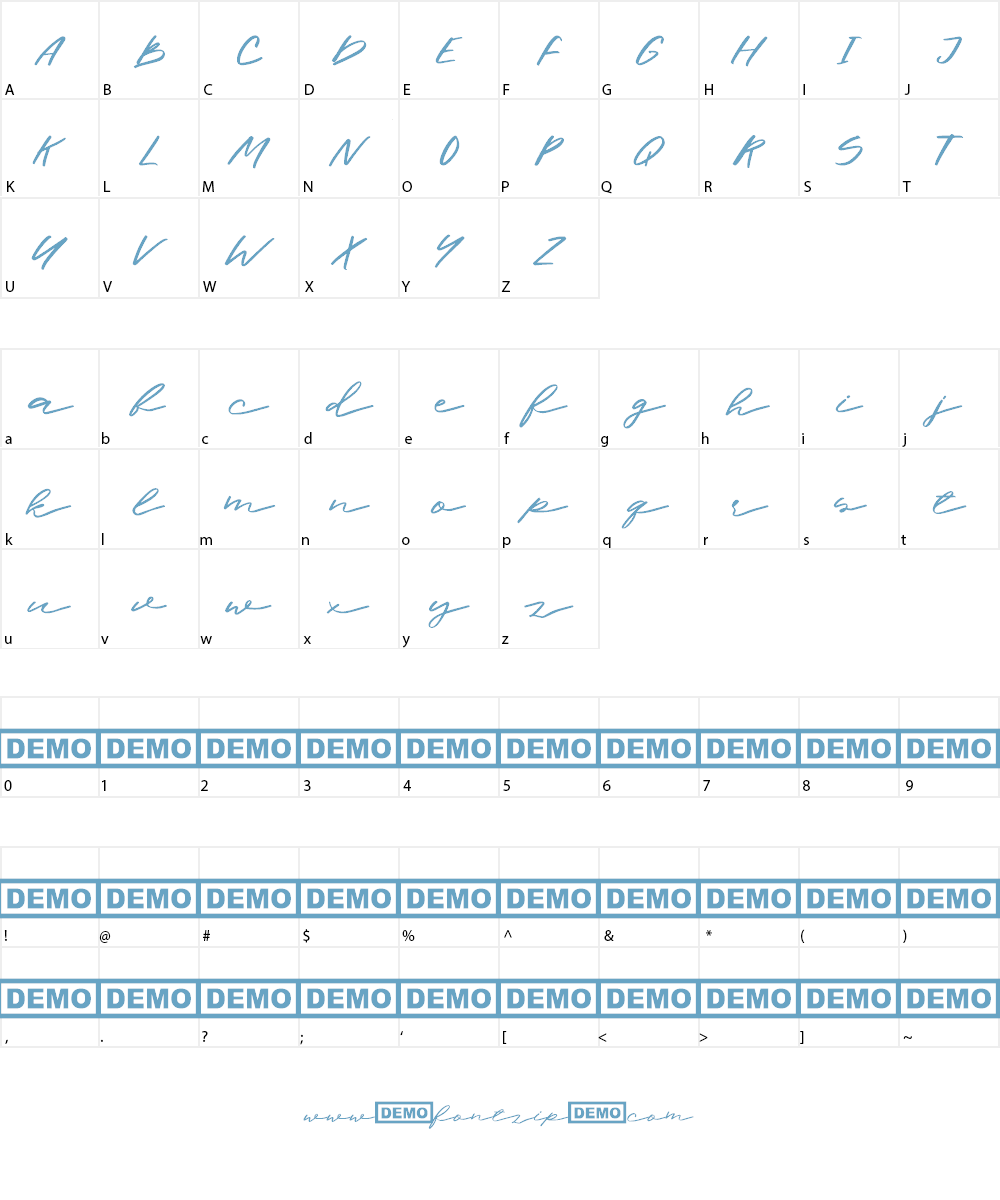
Meet my new font Halbrein – a romantic delicate script font with its poetic flow, wich simulates natural handwriting. Full version of Halbrein comes with uppercase, lowercase, standard punctuation and special letters for most of the European languages.